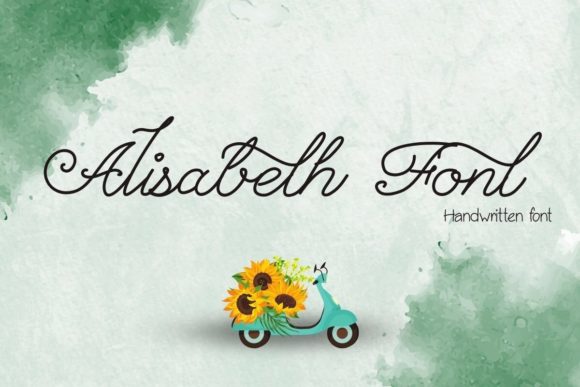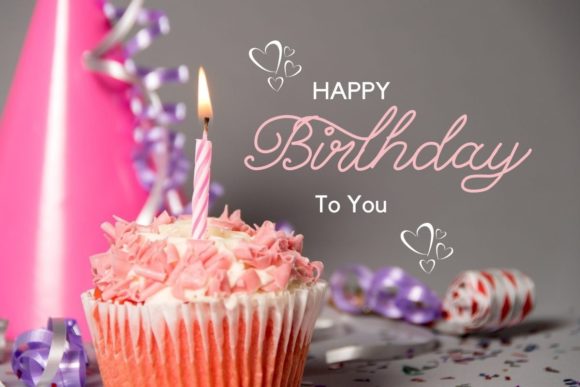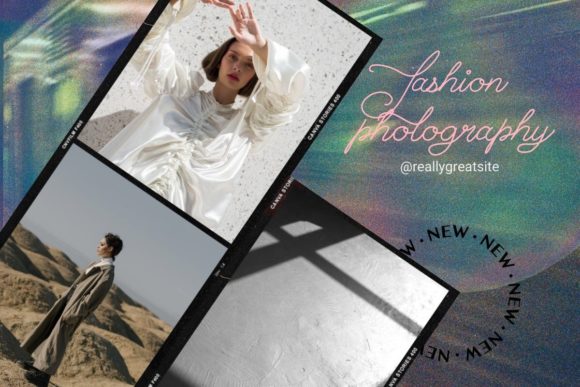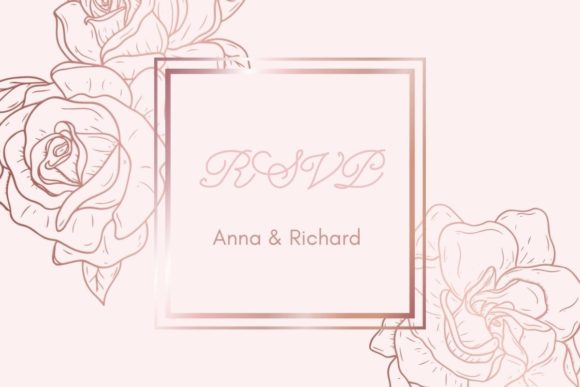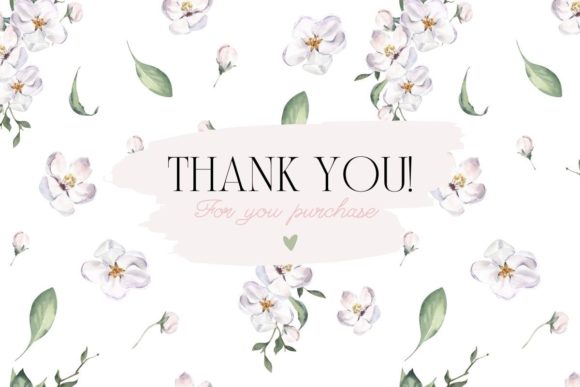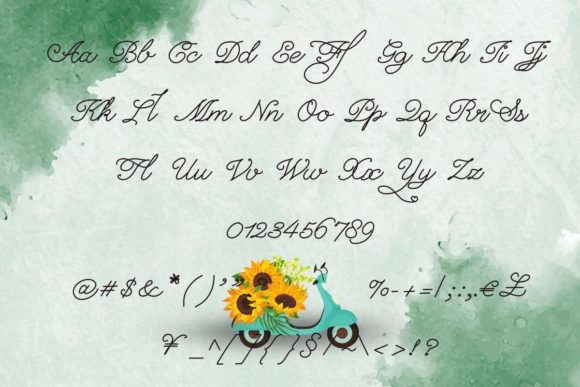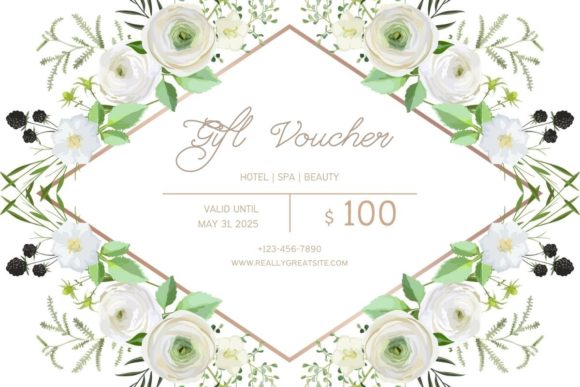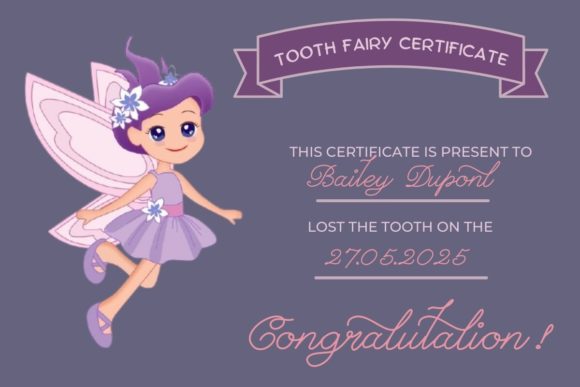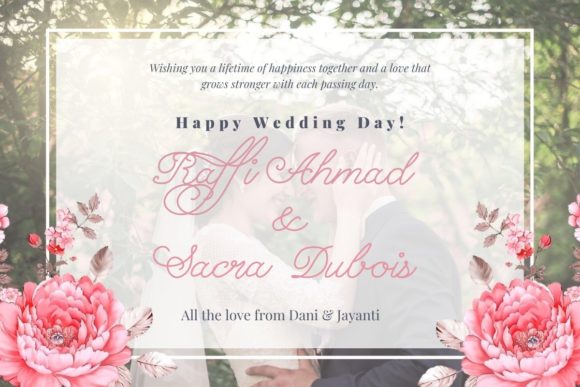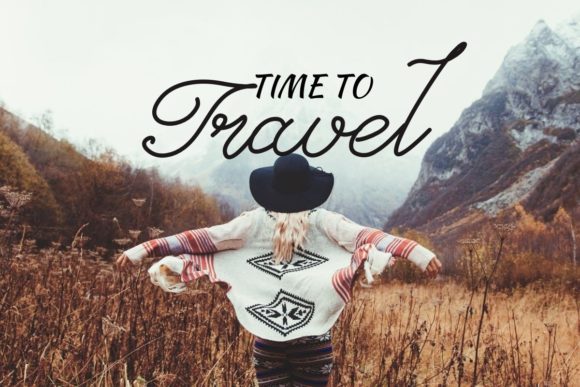
Alisabeth Font
About Alisabeth Font
Alisabeth, a delicate and fashionable script font, emerges as an excellent choice for diverse branding projects, including logos, t-shirt printing, creative products, and more. With its refined design, this font is crafted to look extraordinary across various contexts, adding a touch of sophistication and elegance to your designs.
The delicacy of Alisabeth’s script imparts a sense of refinement to each character, making it a standout element in branding projects. Whether it’s enhancing logos or elevating the aesthetics of t-shirt designs, Alisabeth brings a fashionable flair that contributes to a memorable and stylish visual identity.
Imagine Alisabeth gracing a logo, where each letter becomes a stroke of elegance. The delicate and fashionable script transforms your brand identity, creating a visual language that is not only extraordinary but also timeless in its appeal.
In the realm of t-shirt printing, Alisabeth becomes a pivotal element in crafting designs that stand out with sophistication. The fashionable script adds a trendy and chic quality, turning your t-shirts into wearable expressions of style.
The versatility of Alisabeth extends to creative products, where its delicate and fashionable script can be a defining factor. Whether it’s on packaging, labels, or promotional materials, this font enhances the overall aesthetic, making your products visually compelling.
As you incorporate Alisabeth into your branding and design projects, may its delicate and fashionable script be a source of inspiration, adding a layer of sophistication to your creative expressions. Whether you’re working on logos, t-shirt designs, or other creative products, Alisabeth has the potential to make your projects extraordinary.